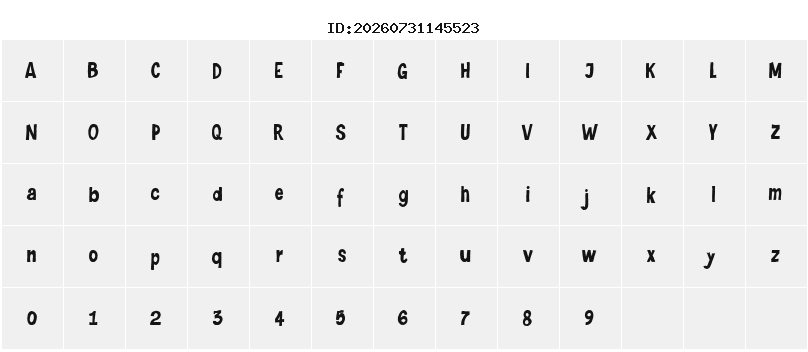
LeviNaiveLetter Preview
• Font Name: LeviNaiveLetter
• Full Font Name: LeviNaiveLetter 1
About LeviNaiveLetter.ttf
LeviNaiveLetter.ttf is a modern, elegant sans-serif font designed for ultimate readability and visual harmony. Perfect for branding, headlines, web design, and print materials.